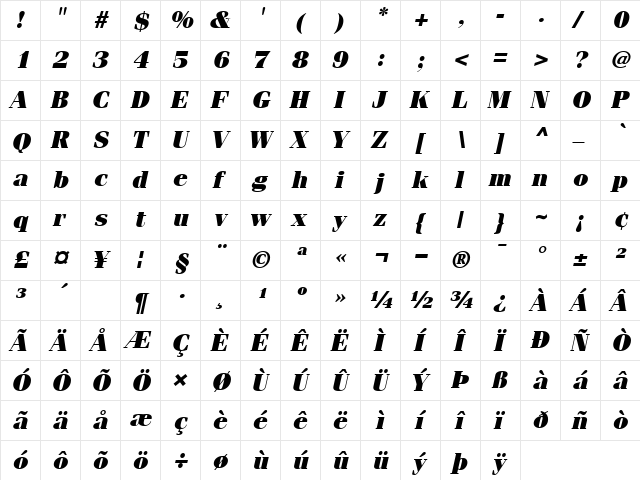
Fenice UltraOblique
Design Context for Fenice Typeface
Fenice takes a measured approach to typography — its balanced proportions and neutral character make it a reliable workhorse for both digital and print work. The dynamic lean of this cut emphasises speed and emphasis in any layout.